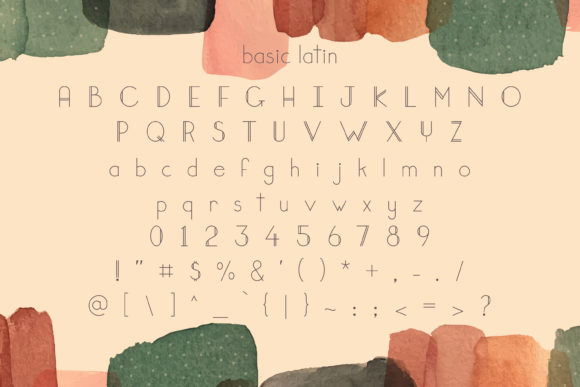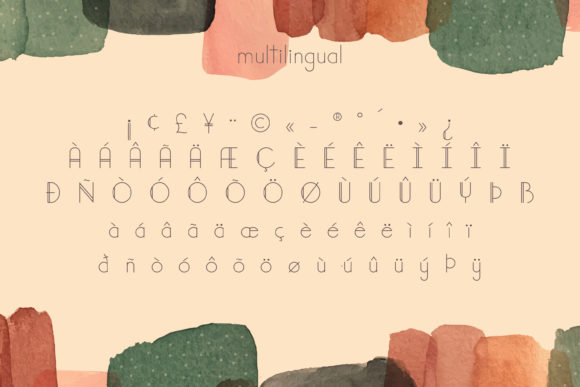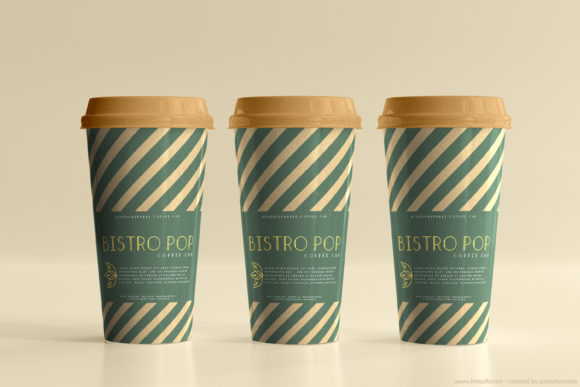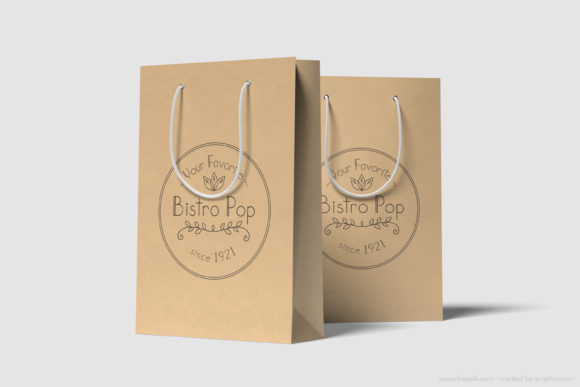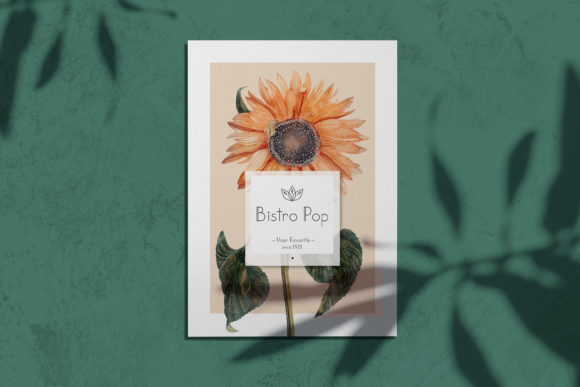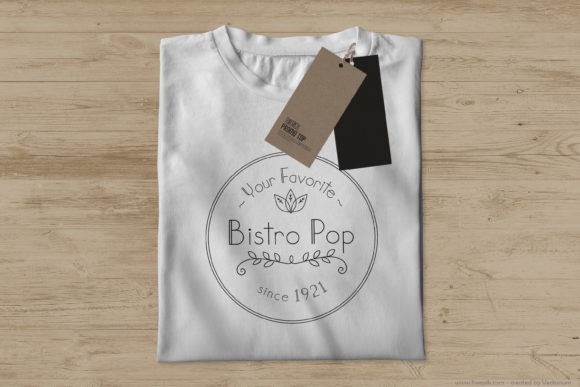
Bistro Pop Font: Elevate Your Designs with a Clean and Modern Aesthetic
In the world of typography, a font can make or break a design. For designers and crafters looking to add a touch of sophistication and modernity to their work, Bistro Pop Font is an excellent choice. This clean and modern looking display font is perfect for web designs, logos, and any project that requires a smart and cool aesthetic.
What is Bistro Pop Font?
Bistro Pop Font is a minimalist and techno-styled font that is designed to make a statement. Its clean lines, simple shapes, and modern look make it an ideal choice for designers who want to add a touch of elegance to their work. This font is perfect for creating stunning headings, titles, and captions that are sure to grab attention.
Key Features of Bistro Pop Font
• Clean and Modern Design: Bistro Pop Font boasts a clean and modern design that is perfect for creating visually appealing designs.
• Minimalist Aesthetic: This font features a minimalist aesthetic that is ideal for designers who want to create simple yet effective designs.
• Techno Styled: Bistro Pop Font has a techno-styled look that is perfect for creating modern and edgy designs.
• High Versatility: This font is highly versatile and can be used for a wide range of design projects, from web designs to logos and more.
Benefits of Using Bistro Pop Font
So, why should you choose Bistro Pop Font for your design projects? Here are just a few benefits of using this amazing font:
• Enhance Your Designs: Bistro Pop Font can elevate your designs and add a touch of sophistication and modernity.
• Improve Readability: This font is highly legible, making it perfect for creating readable and engaging content.
• Increase Brand Visibility: By using Bistro Pop Font, you can create stunning designs that are sure to grab attention and increase brand visibility.
• Save Time: With Bistro Pop Font, you can create professional-looking designs in no time, saving you time and effort.
How to Use Bistro Pop Font
Using Bistro Pop Font is easy and straightforward. Here are a few tips to get you started:
• Pair it with Other Fonts: Bistro Pop Font can be paired with other fonts to create a unique and visually appealing design.
• Experiment with Different Sizes: Try experimenting with different font sizes to create a hierarchy of headings and titles.
• Use it for Headings and Titles: Bistro Pop Font is perfect for creating stunning headings and titles that are sure to grab attention.
Who Can Benefit from Bistro Pop Font?
Bistro Pop Font is perfect for a wide range of designers and crafters, including:
• Graphic Designers: Graphic designers can use Bistro Pop Font to create stunning logos, brochures, and other marketing materials.
• Web Designers: Web designers can use this font to create modern and visually appealing websites.
• Crafters: Crafters can use Bistro Pop Font to create beautiful and unique craft projects, such as handmade cards and gift tags.
In conclusion, Bistro Pop Font is an excellent choice for designers and crafters looking to add a touch of sophistication and modernity to their work. With its clean and modern design, minimalist aesthetic, and techno-styled look, this font is perfect for creating stunning designs that are sure to grab attention. Whether you’re a graphic designer, web designer, or crafter, Bistro Pop Font is a must-have font that can elevate your designs and take them to the next level.